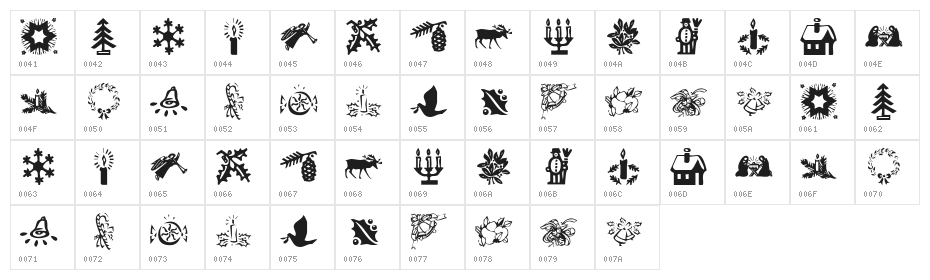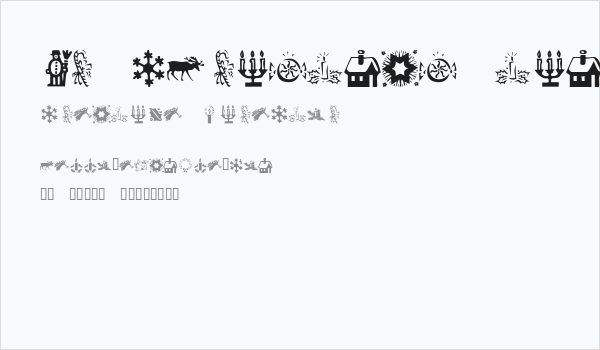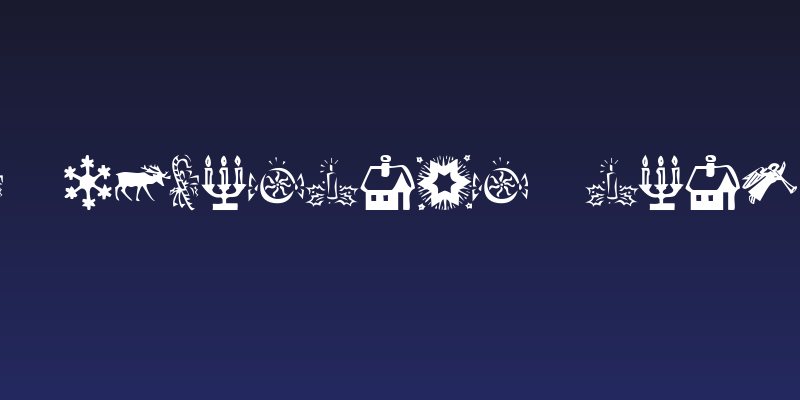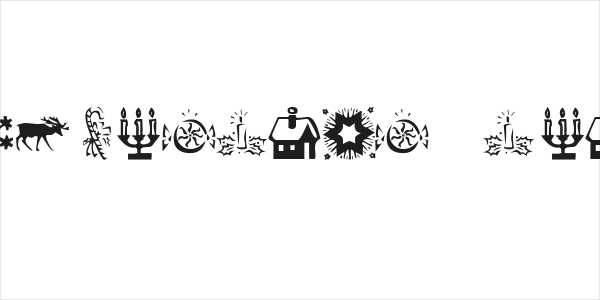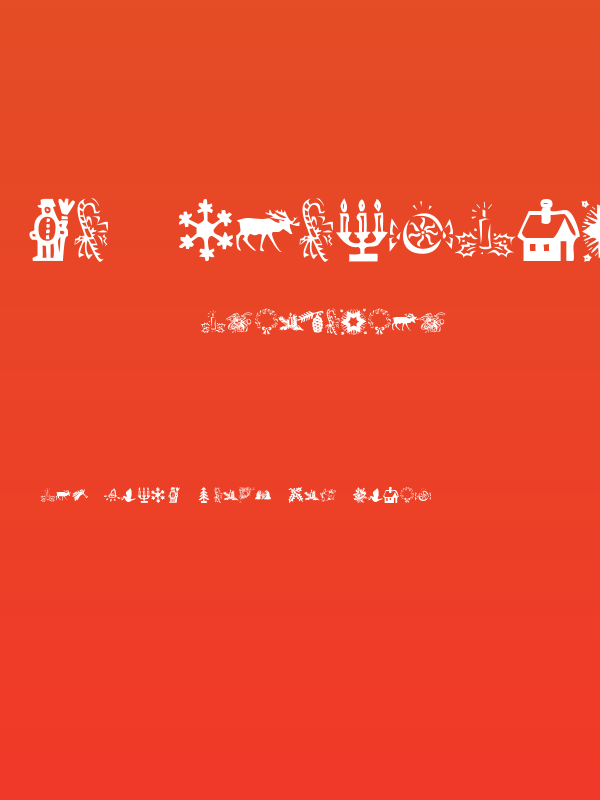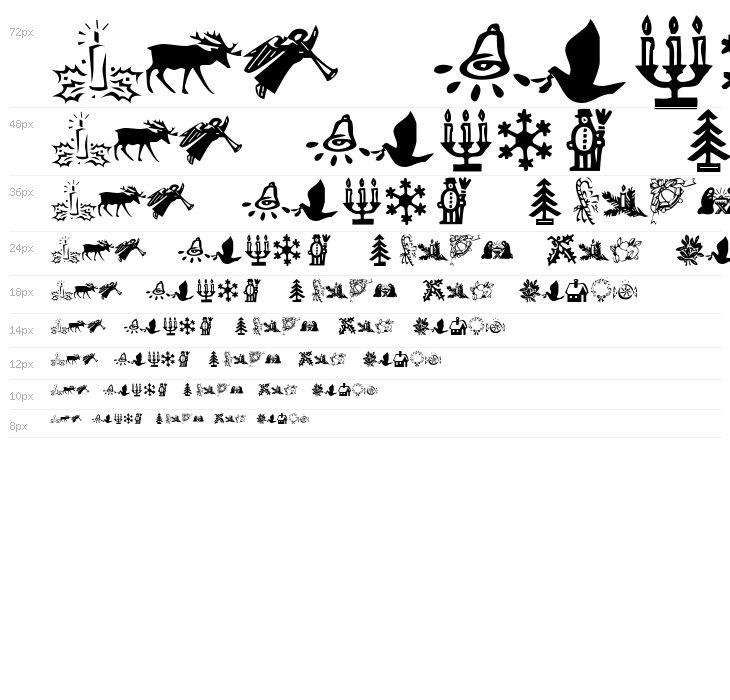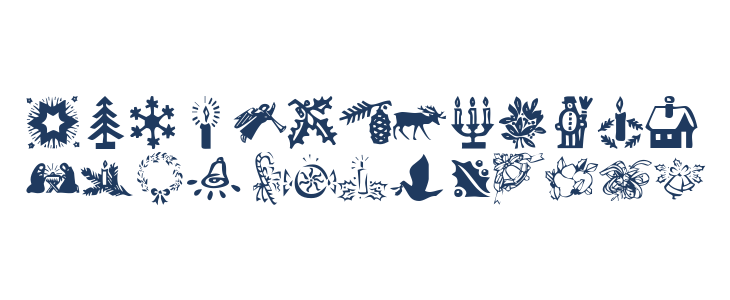
KR Christmas Time 2 Font
KR Christmas Time 2 Description
This decorative font is a festive collection of Christmas-themed icons, featuring a variety of holiday symbols such as Christmas trees, snowflakes, candles, holly, reindeer, and snowmen. Each character is a unique illustration that captures the essence of the holiday season, making it perfect for adding a touch of Christmas spirit to any project. The icons are bold and detailed, with a playful and whimsical style that is both charming and eye-catching. The font is ideal for use in holiday cards, festive banners, and seasonal decorations, providing a creative way to convey holiday cheer.
| Use Case | Logos, Headlines |
| Proposed Projects | Holiday cards, festive banners, seasonal decorations, Christmas-themed designs. |